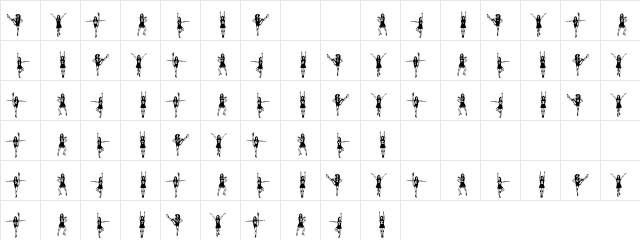
Hots Regular Font Preview
Hots Regular
Design Context for Hots Typeface
Hots is a composed and adaptable typeface that performs quietly and consistently across a wide range of design contexts.